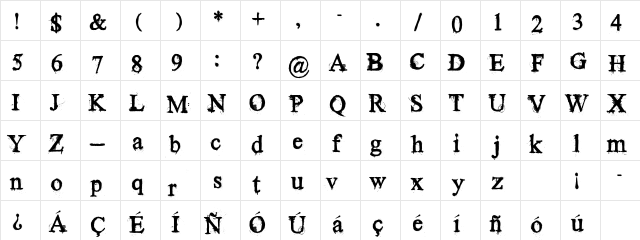
Times New Yorker Regular
Design Context for Times New Yorker Typeface
Times New Yorker takes a measured approach to typography — its balanced proportions and neutral character make it a reliable workhorse for both digital and print work.